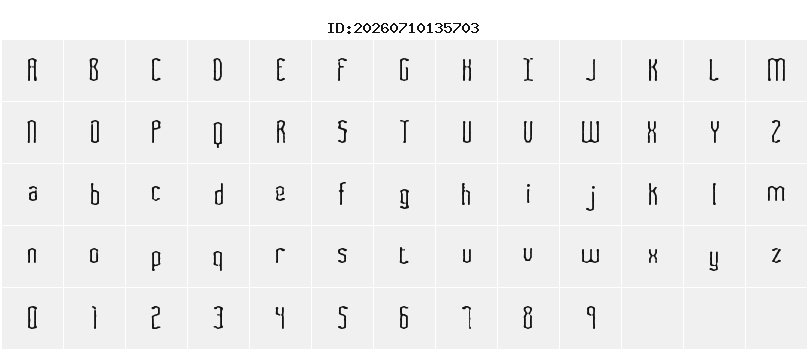
Fascii Smudge BRK Preview
• Font Name: Fascii Smudge BRK
• Font ID: AENIGMA FONTS: Fascii Smudge BRK
• Full Font Name: Fascii Smudge BRK
• Designer: ÆNIGMA FONTS - Brian Kent
• Manufacturer: ÆNIGMA FONTS
About Fascii Smudge BRK.ttf
Fascii Smudge BRK.ttf is a modern, elegant sans-serif font designed for ultimate readability and visual harmony. Perfect for branding, headlines, web design, and print materials.